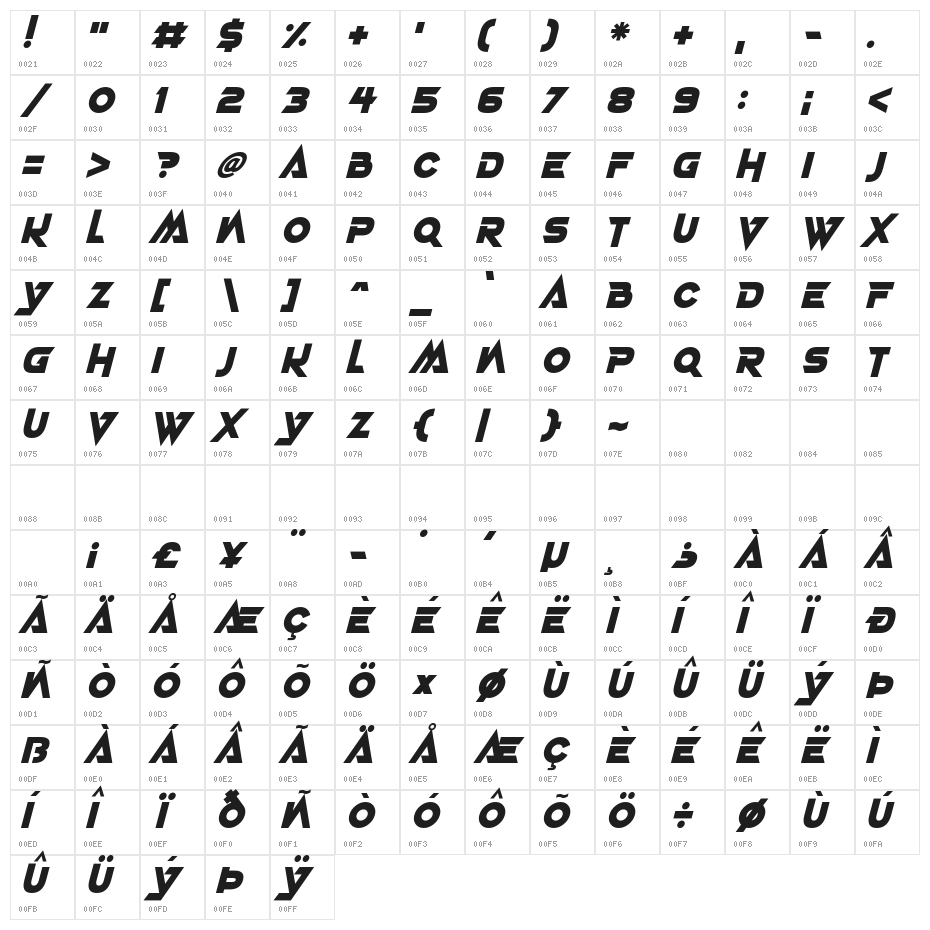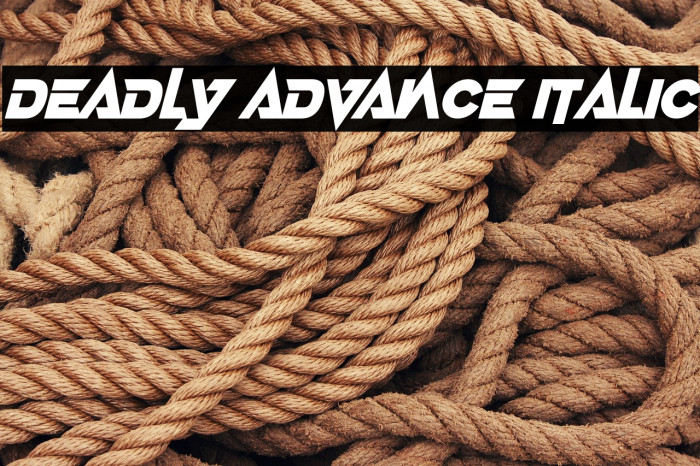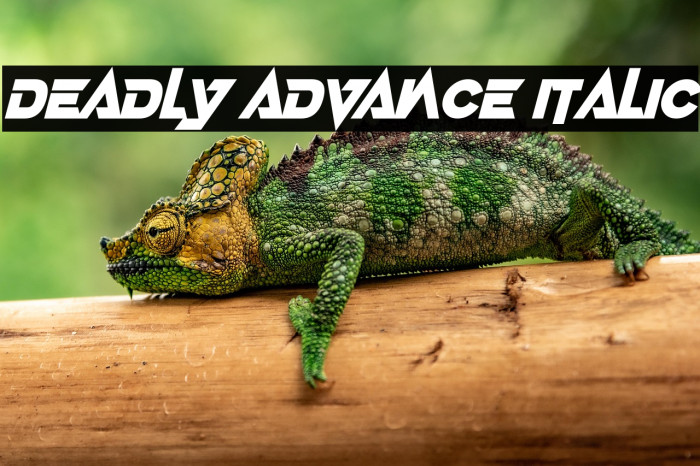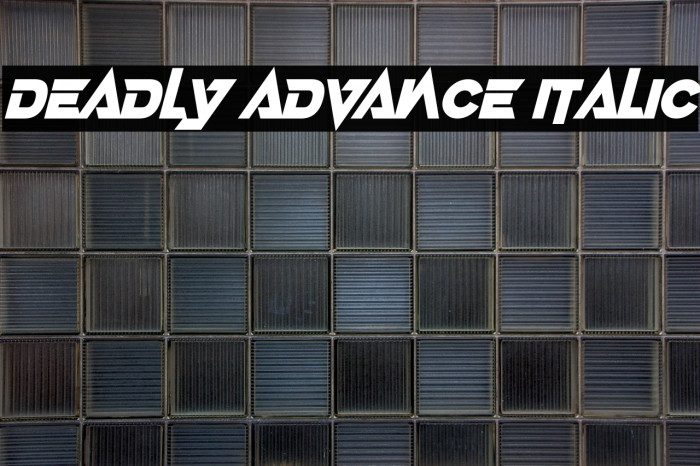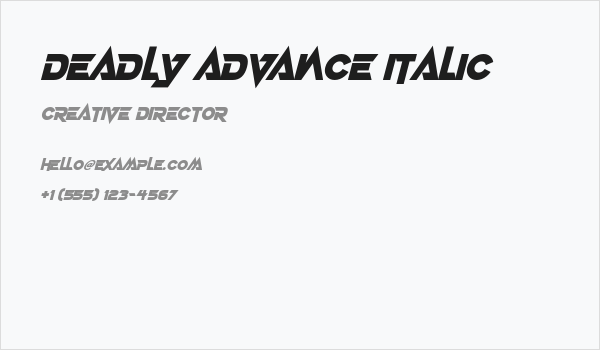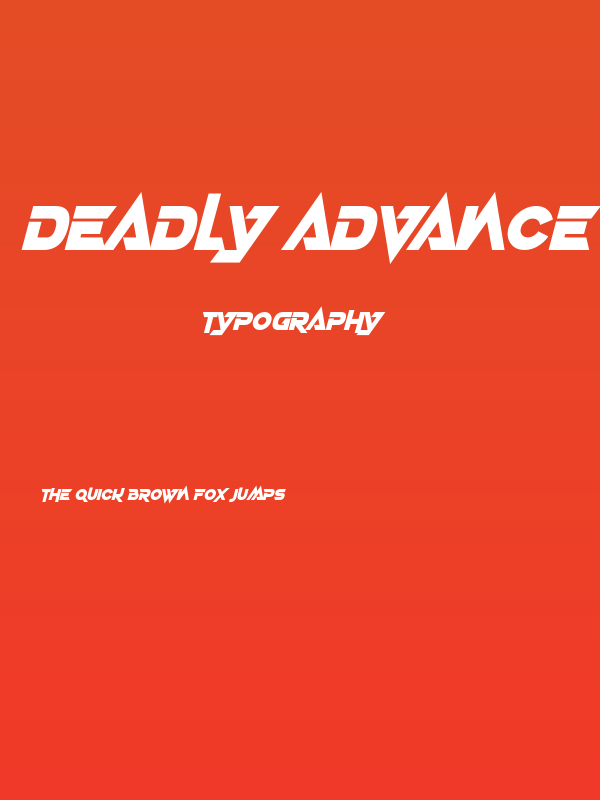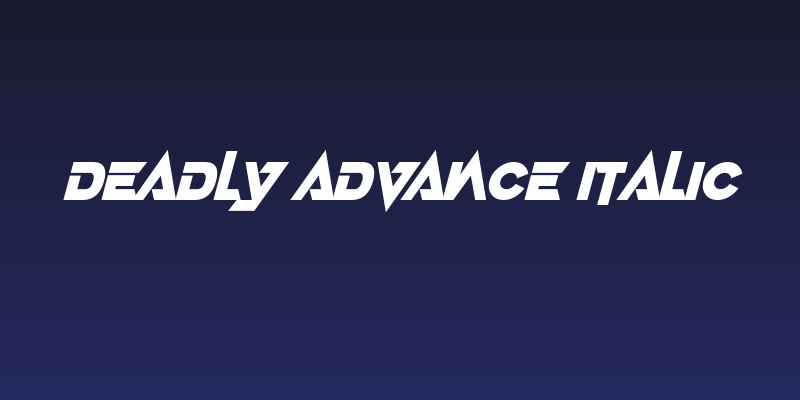
Deadly Advance Italic Font
Deadly Advance Italic Description
This font features a bold, italicized style with a futuristic and dynamic appearance. The characters are sharply angled, giving them a sense of motion and speed. The uppercase and lowercase letters maintain a consistent slant, enhancing the italic effect. The numbers and special characters follow the same design principles, ensuring uniformity across all glyphs. The font's bold weight and unique style make it stand out, suitable for projects that require a modern and edgy look.
| Proposed Projects | Ideal for sci-fi themed designs, video game titles, sports branding, and dynamic posters. |